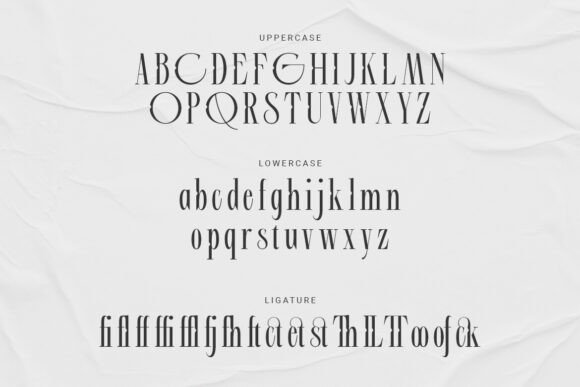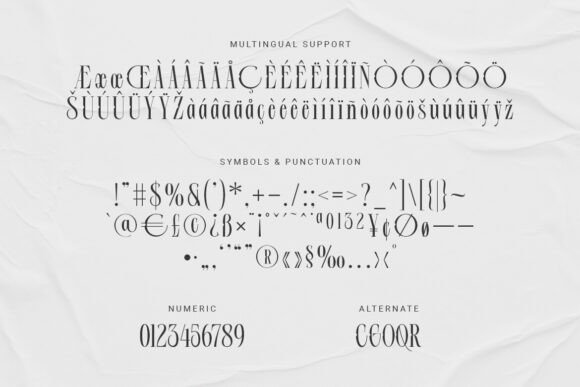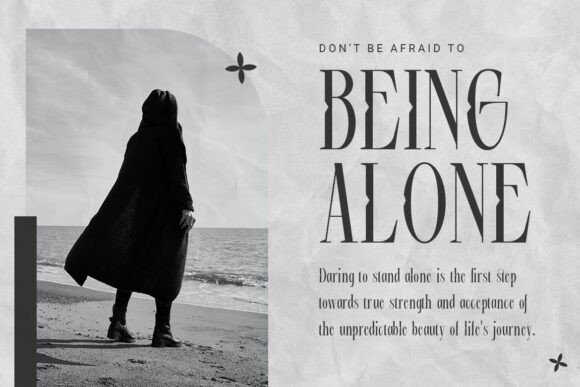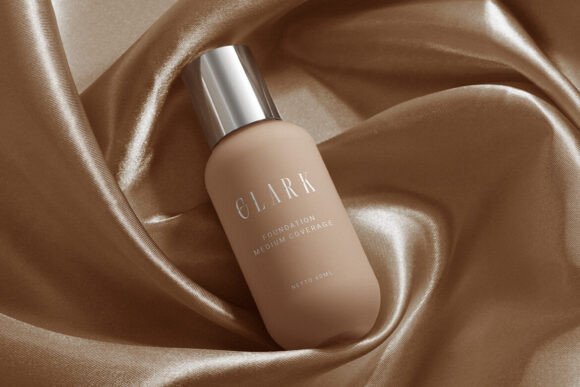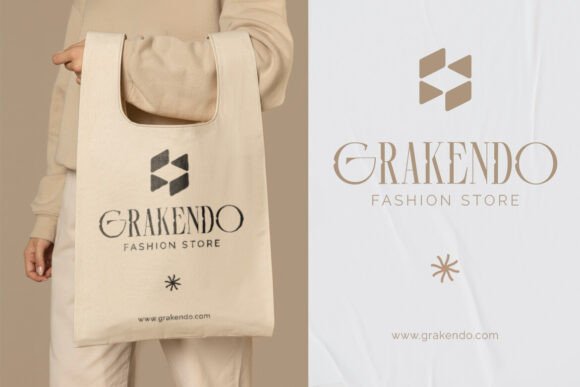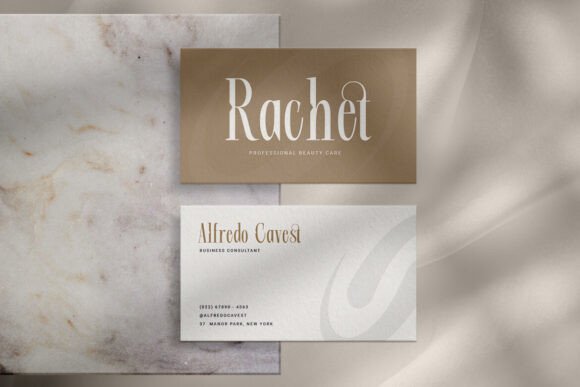
Introduction to Grandero Font
As a designer, you’ve probably experienced that moment when a single font can elevate an entire creative project from good to great. It’s a moment of pure magic, where the perfect typography brings your vision to life. For many of us, that moment is often associated with the Grandero Font – a majestic serif font that exudes sophistication and style.
Whether you’re working on a high-end brand identity, an editorial design, or a trend-forward fashion magazine, the Grandero Font is an essential design resource that can lend an air of elegance to your work. Its slender letterforms and delicate serifs create a harmonious balance of classic and modern, making it a versatile choice for designers who crave to infuse a touch of high-class refinement to their projects.
Key Features of Grandero Font
- Unique and modern design, perfect for adding a touch of sophistication to any creative project.
- Supports a wide range of languages, including Latin, Cyrillic, and Greek, making it a versatile design resource.
Honest Review: Grandero Font
I’ve been using the Grandero Font for a few creative projects, and I must say it’s a solid addition to my design resource library. This font has a unique, elegant feel that works perfectly for titles and headings.
What I love about the Grandero Font is its high quality and versatility. It’s available in multiple weights and styles, making it easy to find the perfect fit for my project. The transparent background option is also a great feature, allowing me to easily overlay the font on different images.
Here are some of the key features that work well: ✨
- Unique and elegant design
- High quality and versatile
- Available in multiple weights and styles
However, there are a few limitations to keep in mind: ⚠️
- Not suitable for body text (due to its elegant design)
- May require additional formatting for some creative projects
Tips for Getting the Most Out of Grandero Font
For optimal results, use Grandero Font in conjunction with other high-quality design elements. Experiment with different font sizes, colors, and layering techniques to achieve a unique look.
Grandero Font is ideal for a variety of creative projects, including: